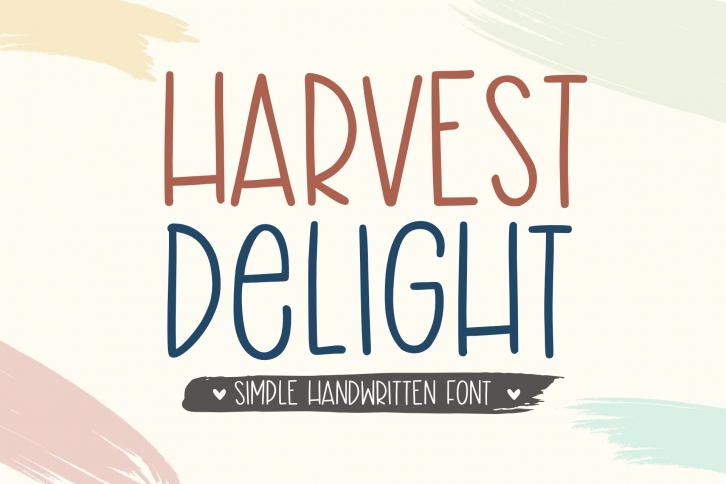
Harvest Delight is a trendy and unique font with an authentic style. It was designed by Holydie Studio and it's a great choice for creative people who need such a font. It was released on February 1, 2021 and the file size is 3.27 MB. Harvest Delight will add an organic vibe to any design idea!